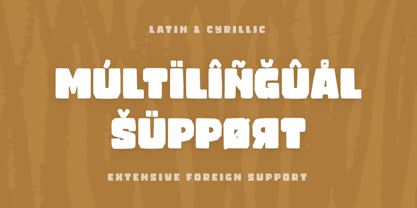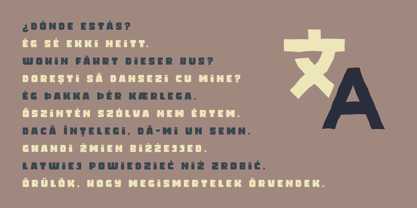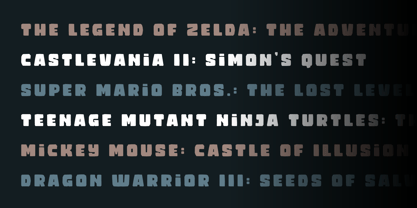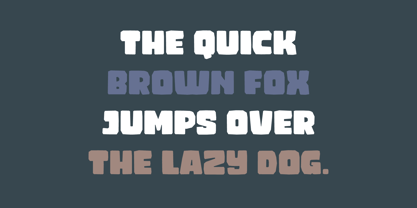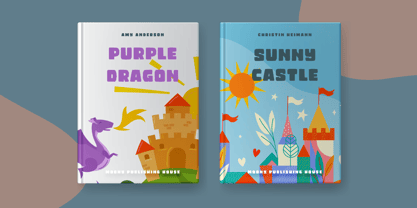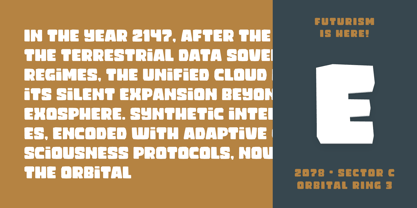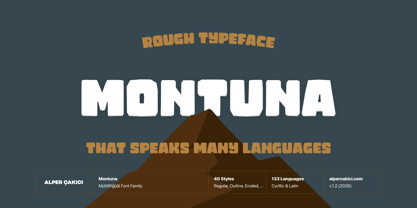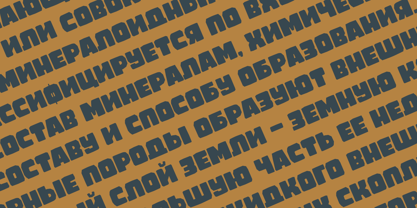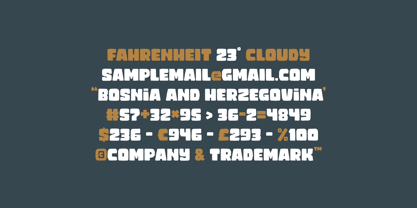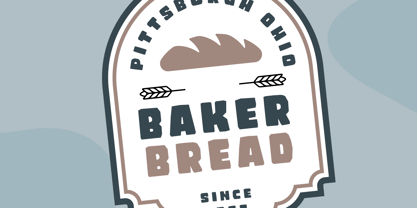
Montuna
The Montuna Font Family was designed by Alper Çakıcı and published by AlperCakici. Montuna contains 40 styles and family package options. More about this family
Montuna is a powerful rough display typeface built for impact. Bold, extra heavy, and unapologetically expressive, it brings raw texture and handcrafted energy into every letterform. Designed for designers who want strength with character, Montuna turns headlines into statements. With its rugged edges and tactile surface details, Montuna blends bold geometry with organic imperfection. The result is a versatile display family that feels authentic, loud, and full of personality—perfect for branding, posters, album covers, packaging, apparel, sports graphics, and social media visuals. Montuna includes an extensive range of styles and finishes, allowing you to shift from sharp and angular to chalky, brushed, waxed, graphite, lined, penciled, eroded, or outlined looks—all within one cohesive system. With support for 133 languages (Cyrillic + Latin), Montuna is ready for global branding and multilingual design projects. If you’re looking for a bold typeface with raw texture, expressive energy, and maximum visual punch—Montuna delivers.